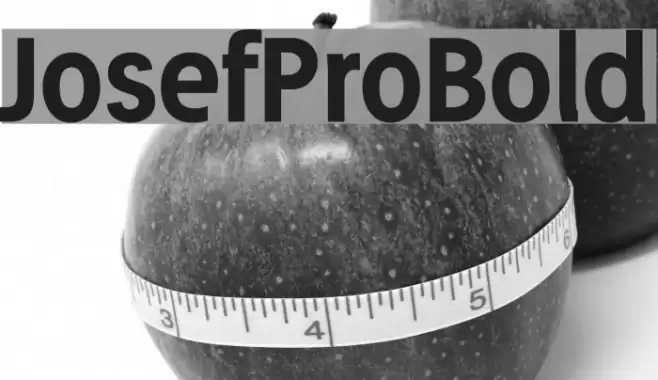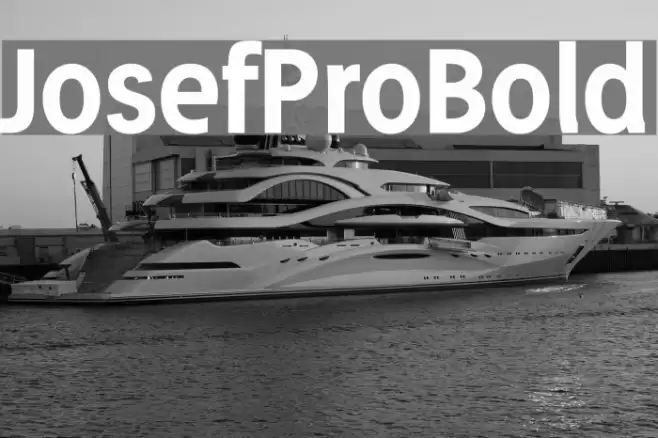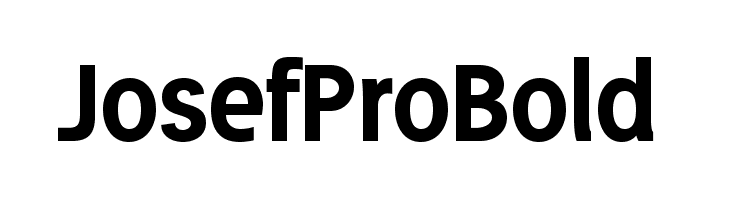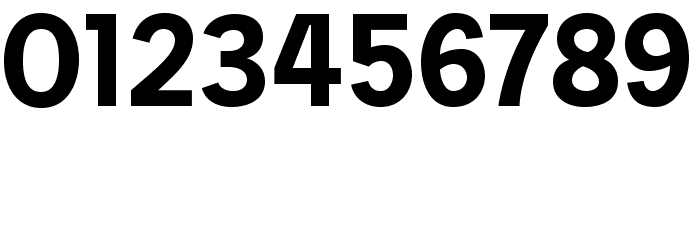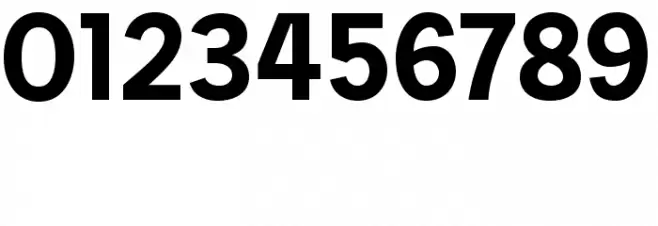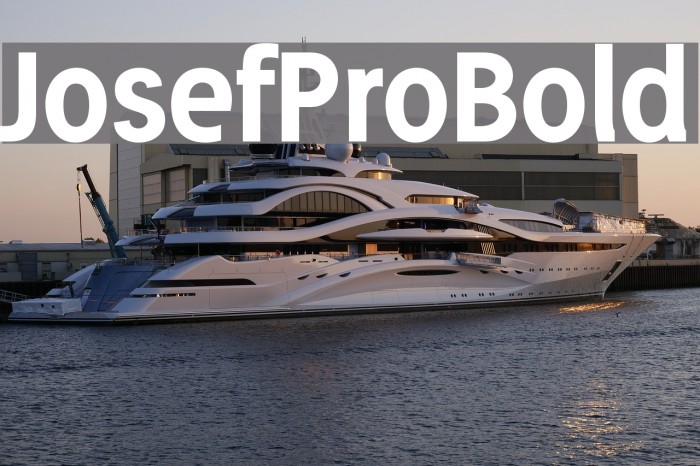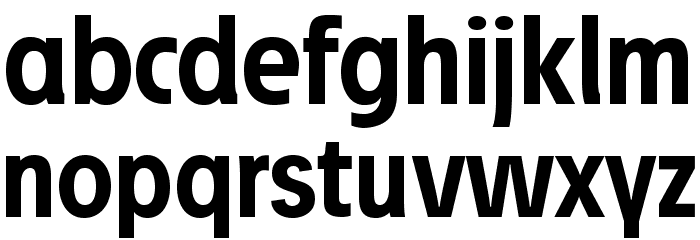
JosefProBold Font
JosefProBold Description
This font features a bold and modern sans-serif style with clean lines and a strong presence. The characters are well-defined, with a uniform stroke width that provides a solid and confident look. The uppercase and lowercase letters maintain a consistent height, contributing to a balanced and harmonious appearance. The numerals are clear and easily distinguishable, making them suitable for various applications. The overall design is straightforward yet impactful, making it versatile for different design needs.
A bold, modern sans-serif font with clean lines and a strong presence from Uncategorized fonts.
- Proposed Projects: Ideal for branding, headlines, posters, and digital media where a bold statement is needed.